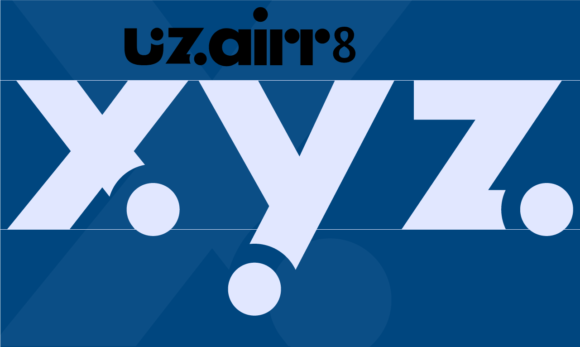
Introducing Uzairr8 Font: The Ultimate Bold and Dotted Typography Experience
In the world of typography, fonts play a crucial role in shaping the identity of a brand, product, or service. With the numerous font options available, it can be challenging to find the perfect one that makes a lasting impression. However, if you’re looking for a font that exudes confidence, boldness, and uniqueness, look no further than Uzairr8. This innovative font is designed to make a powerful impact, and in this article, we’ll explore its features, benefits, and applications.
What is Uzairr8 Font?
Uzairr8 is a distinctive font characterized by its bold and dotted style. Its impressive architecture makes it an ideal choice for packaging designs, brand shaping, and various creative projects. What sets Uzairr8 apart is its exclusive lowercase characters, carefully handcrafted to provide a unique and engaging aesthetic.
The font’s bold and dotted design creates a striking visual effect, making it perfect for designers who want to create a lasting impression. Whether you’re designing a logo, redefining a brand image, or simply want to add a touch of personality to your project, Uzairr8 has got you covered.
The Benefits of Using Uzairr8 Font
So, what makes Uzairr8 an attractive option for designers? Here are some benefits of using this innovative font:
- Unique Aesthetic: Uzairr8 offers a distinctive and engaging aesthetic that’s sure to set your design apart from the rest.
- Bold and Confident: The font’s bold and dotted style exudes confidence and makes a powerful impact.
- Versatile: Uzairr8 can be used for a wide range of applications, from packaging designs to brand shaping and more.
- Exclusive Lowercase Characters: The font’s handcrafted lowercase characters add an extra touch of personality to your design.
Exploring the Applications of Uzairr8 Font
Uzairr8 is a versatile font that can be used in various creative projects. Here are some applications where this font shines:
- Logo Design: Create striking logos that make a lasting impression with Uzairr8’s bold and dotted style.
- Brand Shaping: Redefine a brand image or create a new one with Uzairr8’s unique aesthetic.
- Packaging Designs: Add a touch of personality to your packaging designs with Uzairr8’s bold and confident style.
- Typography: Explore a new dimension of typography with Uzairr8 and create engaging text-based designs.
The Intersection of Style and Substance
In the world of design, style and substance are often seen as mutually exclusive. However, with Uzairr8, you can have both. The font’s bold and dotted style is not only visually striking but also provides a sense of substance and confidence.
With Uzairr8, you can create designs that are not only aesthetically pleasing but also communicate a message of strength and reliability. Whether you’re designing for a corporate client or creating a personal project, Uzairr8 is the perfect choice.
Elevate Your Typography Experience with Uzairr8
Uzairr8 is more than just a font – it’s an experience. With its bold and dotted style, exclusive lowercase characters, and versatility, this font is sure to take your typography to the next level.
Whether you’re a seasoned designer or just starting out, Uzairr8 is an excellent addition to your font library. So, why settle for ordinary fonts when you can have an extraordinary one? Explore the world of Uzairr8 and discover a new dimension of typography.
In conclusion, Uzairr8 is a game-changing font that’s sure to make a lasting impression. With its bold and dotted style, exclusive lowercase characters, and versatility, this font is perfect for designers who want to create striking logos, redefine brand images, or simply add a touch of personality to their projects.
So, don’t settle for ordinary fonts – choose Uzairr8 and elevate your typography experience. With this innovative font, you can create designs that are not only visually striking but also communicate a message of strength and reliability.